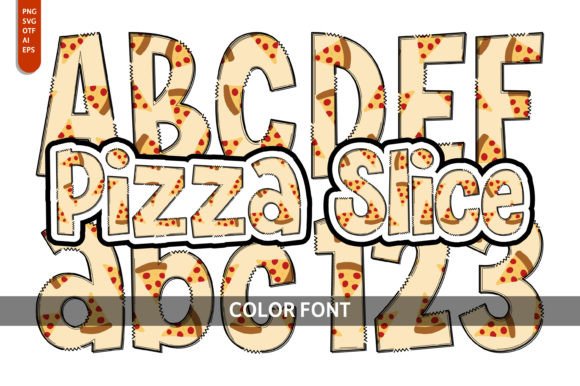
In a world saturated with monotonous fonts, Pizza Slice Font emerges as a vibrant burst of creativity. A member of the colorful font family, it's a visual symphony of colors and shapes that dances across the screen.
Crafted by Imagination Switch, Pizza Slice Font possesses a playful spirit that's perfect for unleashing your imagination. Its whimsical nature makes it ideal for designs that aim to enchant and captivate, such as children's books, posters, invitations, and greeting cards.
With Pizza Slice Font as your creative companion, you can transport your readers into a world of wonder. Picture a children's book where the letters dance off the page, each one a colorful character in its own right. The whimsical shapes and vibrant hues ignite a child's imagination, creating an immersive reading experience that fosters a love for literature.
But Pizza Slice Font is not just for children's books. Its versatility extends to posters, invitations, greeting cards, and any design that demands a touch of whimsy. Its unique aesthetic adds a spark of creativity to your designs, making them stand out from the crowd.
In the realm of graphic design, Pizza Slice Font reigns supreme. Its ability to convey emotions and evoke a sense of childlike wonder makes it a must-have for designers seeking to create designs that resonate with their audience.